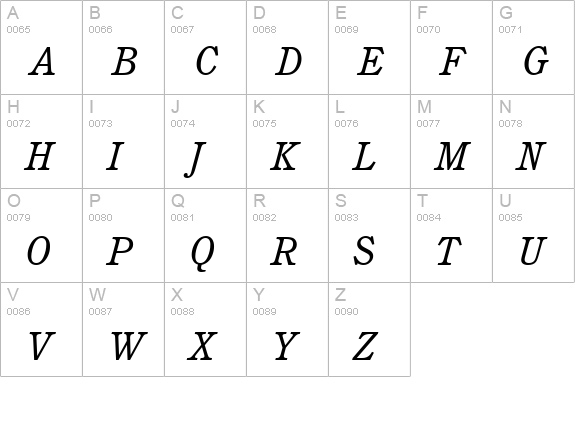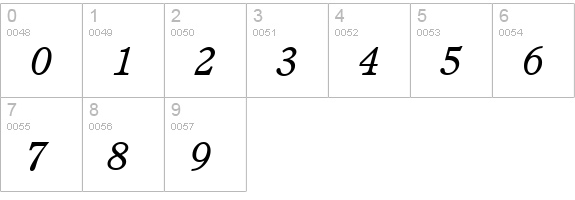
Calgary-BookItalic Font Details
Calgary-BookItalic is a modern and stylish font that exudes elegance and sophistication. With its sleek and slender letterforms, this font is perfect for creating a refined and professional look in your design projects. The italicized style adds a touch of flair and sophistication, making it ideal for use in headings, quotes, and other display text. What sets Calgary-BookItalic apart is that it is available for free download at FontsMarket.com. This means you can easily access this high-quality font without any cost, making it a valuable addition to your typography collection. Whether you're working on a branding project, website design, or any other creative endeavor, Calgary-BookItalic is sure to elevate your work with its timeless appeal. Download it today and add a touch of sophistication to your designs.